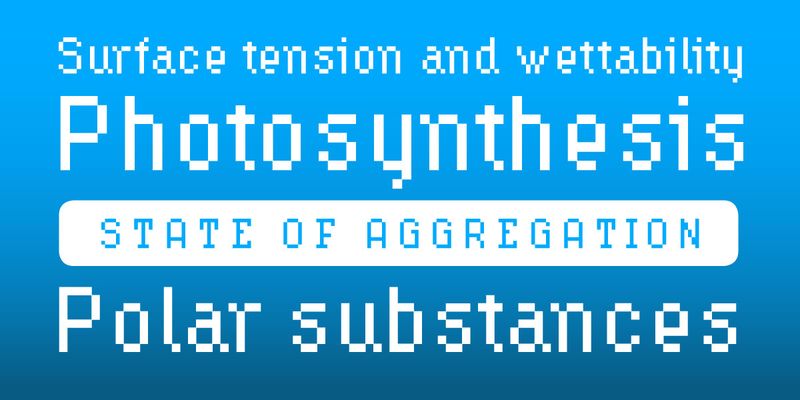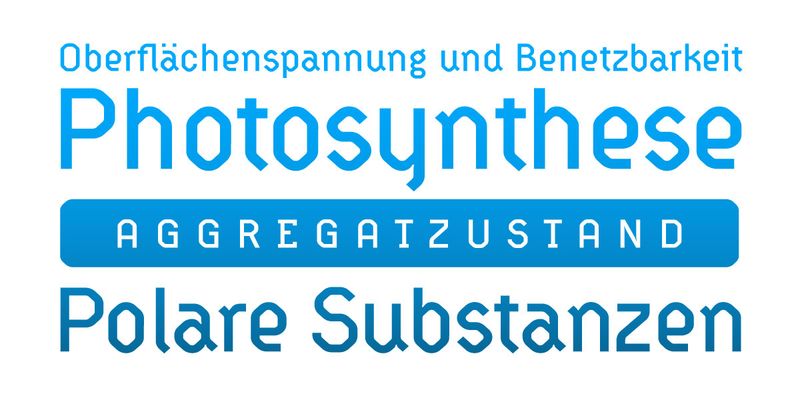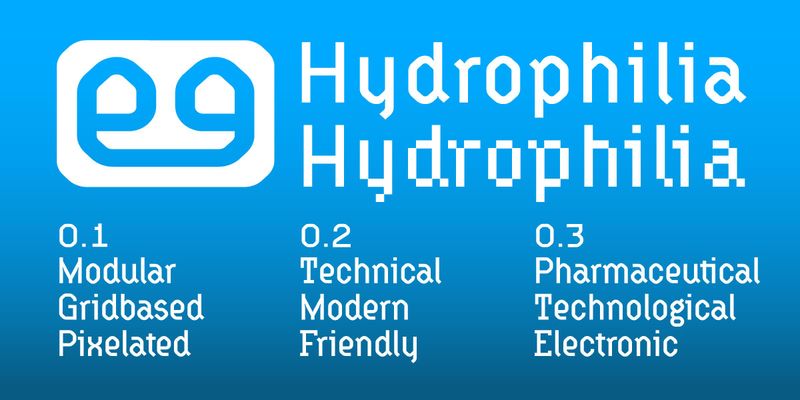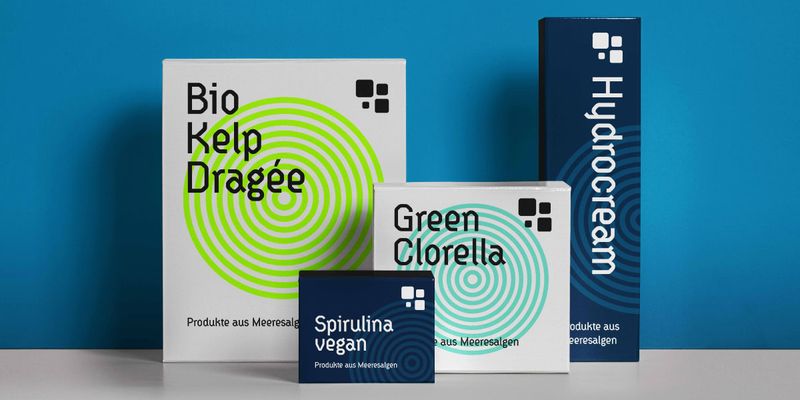
The Hydrophilia family was created in 2003 by Felix Braden as a further development of the Moby typeface. It is a grid-based design and comes with two fonts: The gothic font (Liquid) is a revised version of the pixel font (Iced). Hydrophilia Liquid features many letterforms with a diagonal axis, and is a reminiscence of the technical fonts used on early liquid crystal displays. The pixel font Hydrophilia Iced is optimized for a font size of 11 pixels.